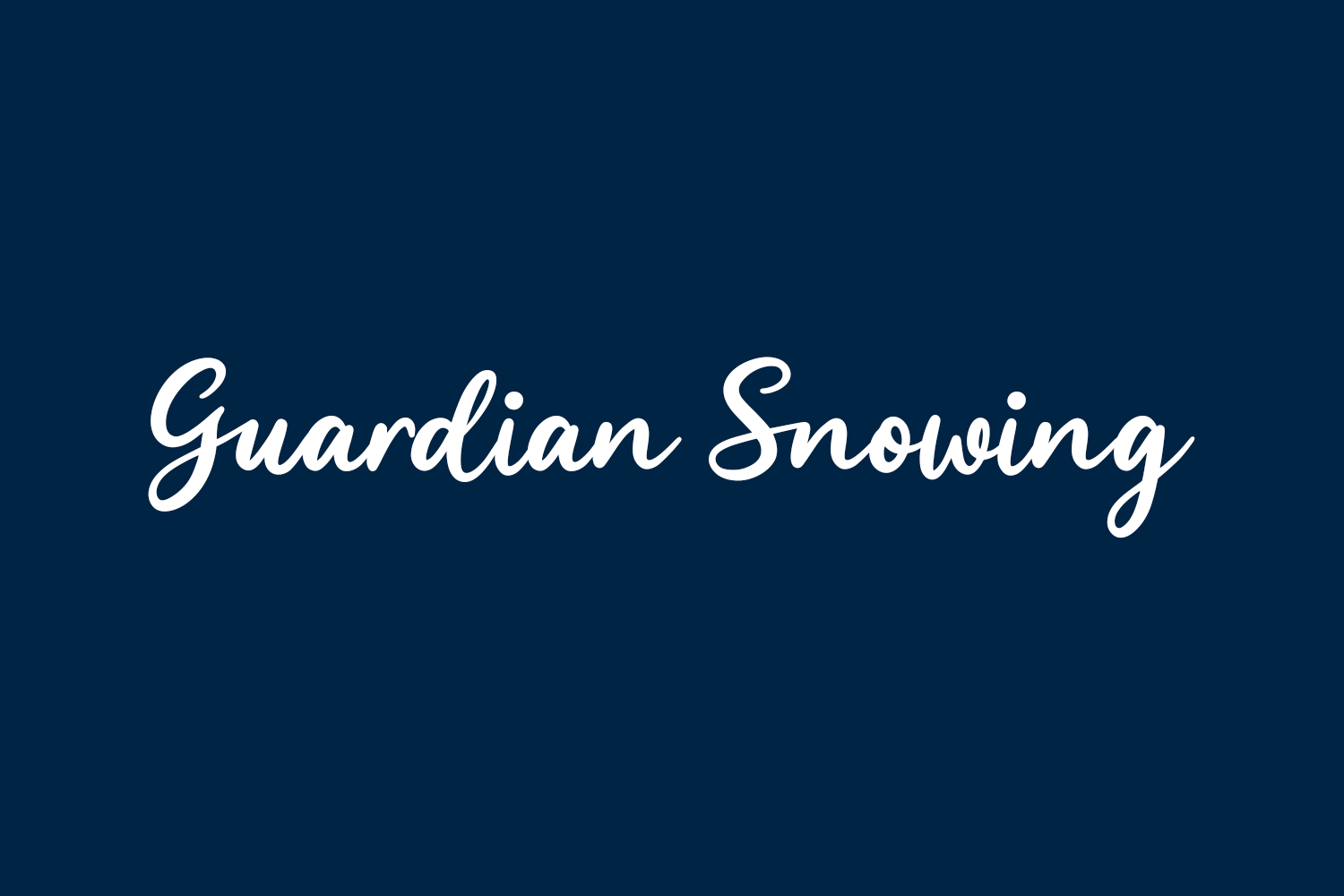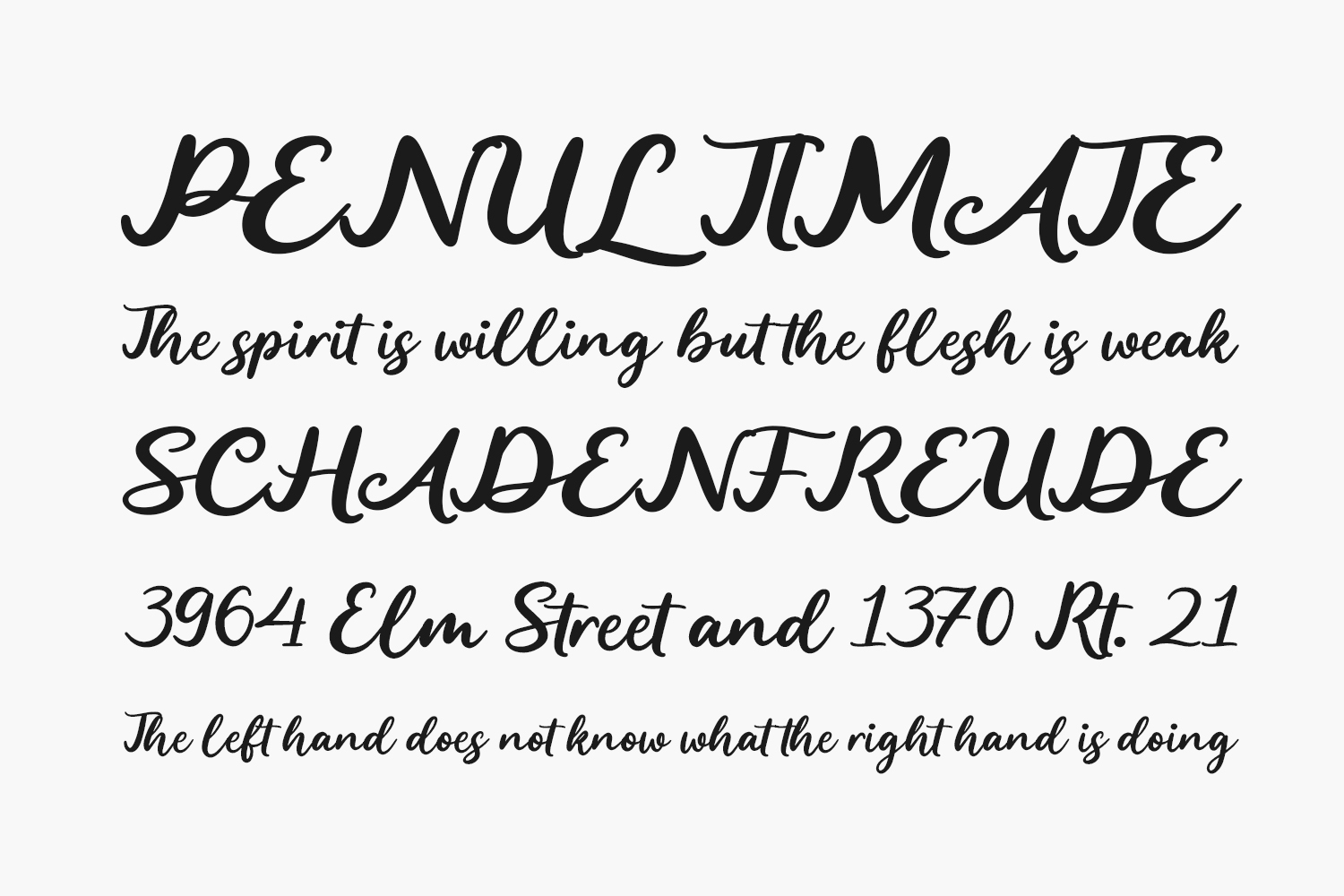
Guardian Snowing Font feels equally charming and elegant. It looks stunning on wedding invitations, thank you cards, quotes, greeting cards, logos, business cards and every other design which needs a customized touch. Guardian Snowing Font was designed by Allouse Studio and is free for personal use only. Please purchase the full version for commercial use.
Designed by Allouse Studio